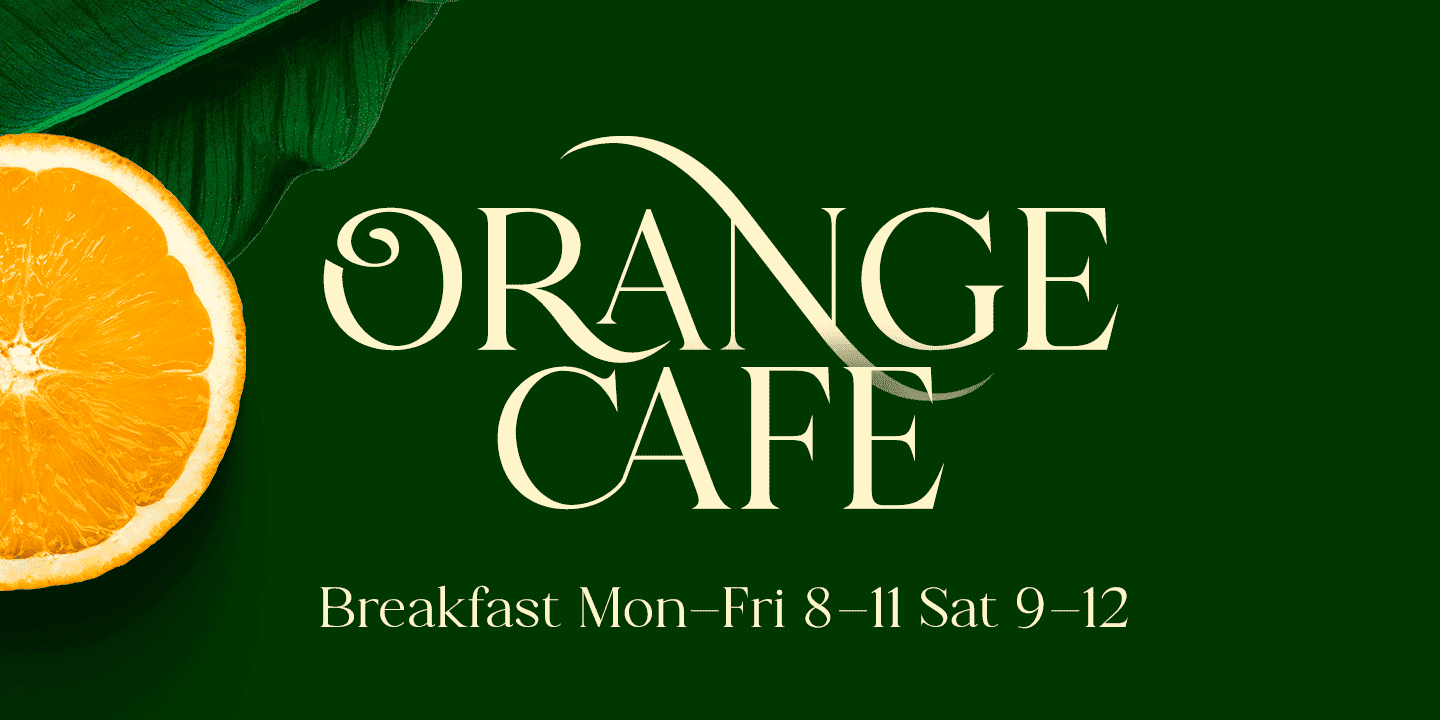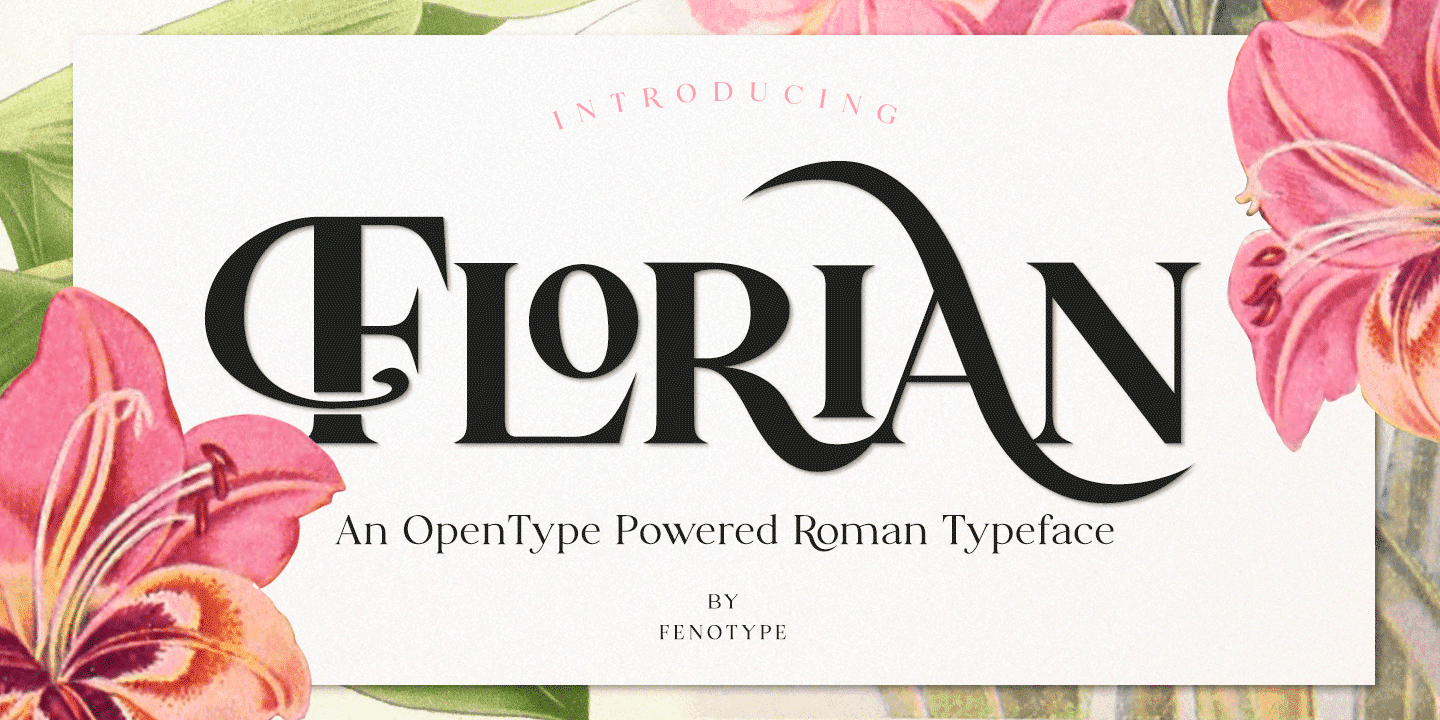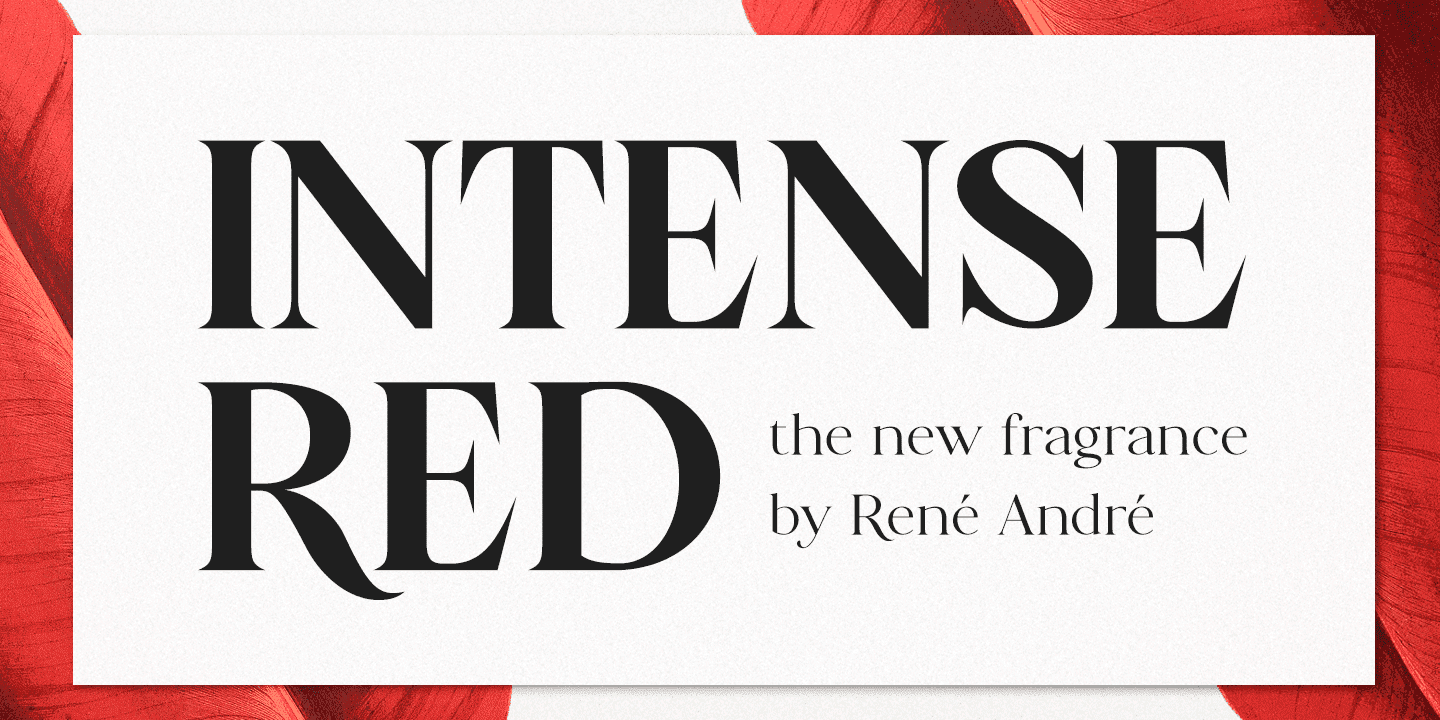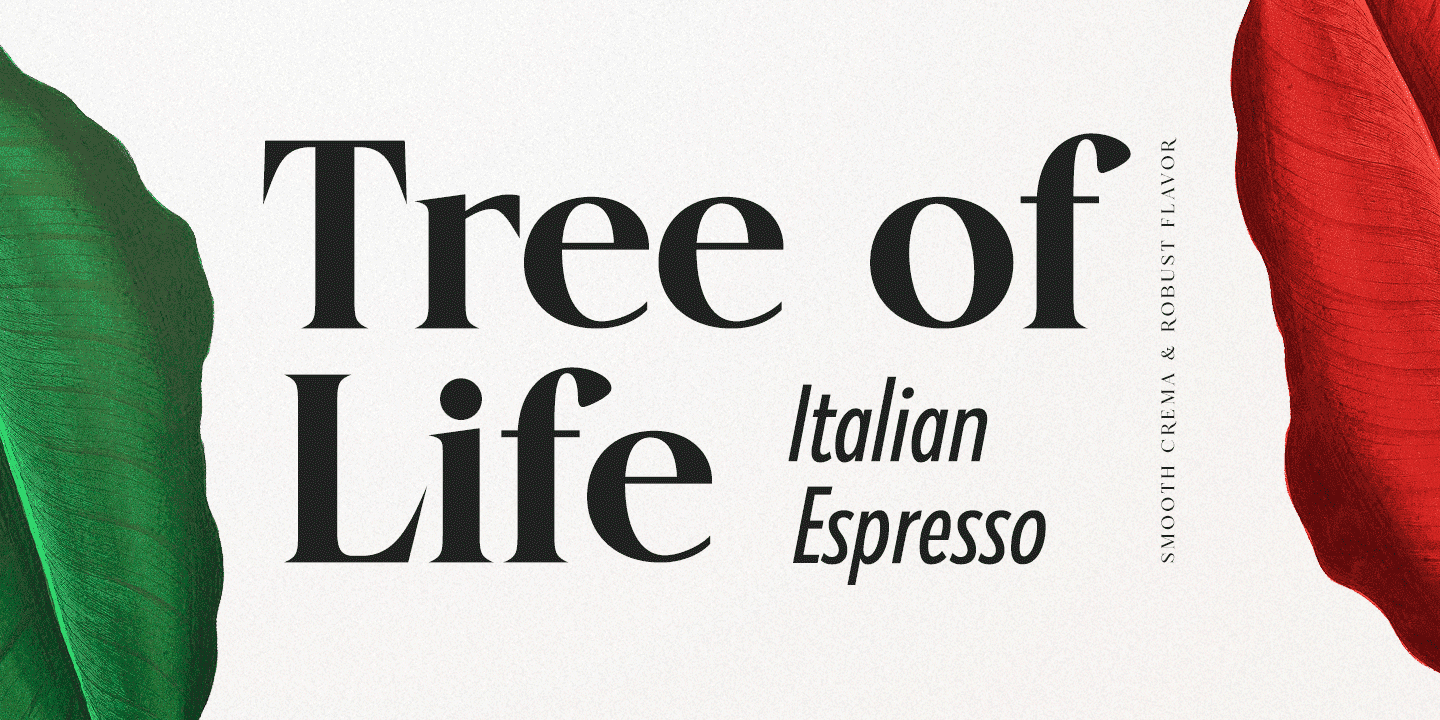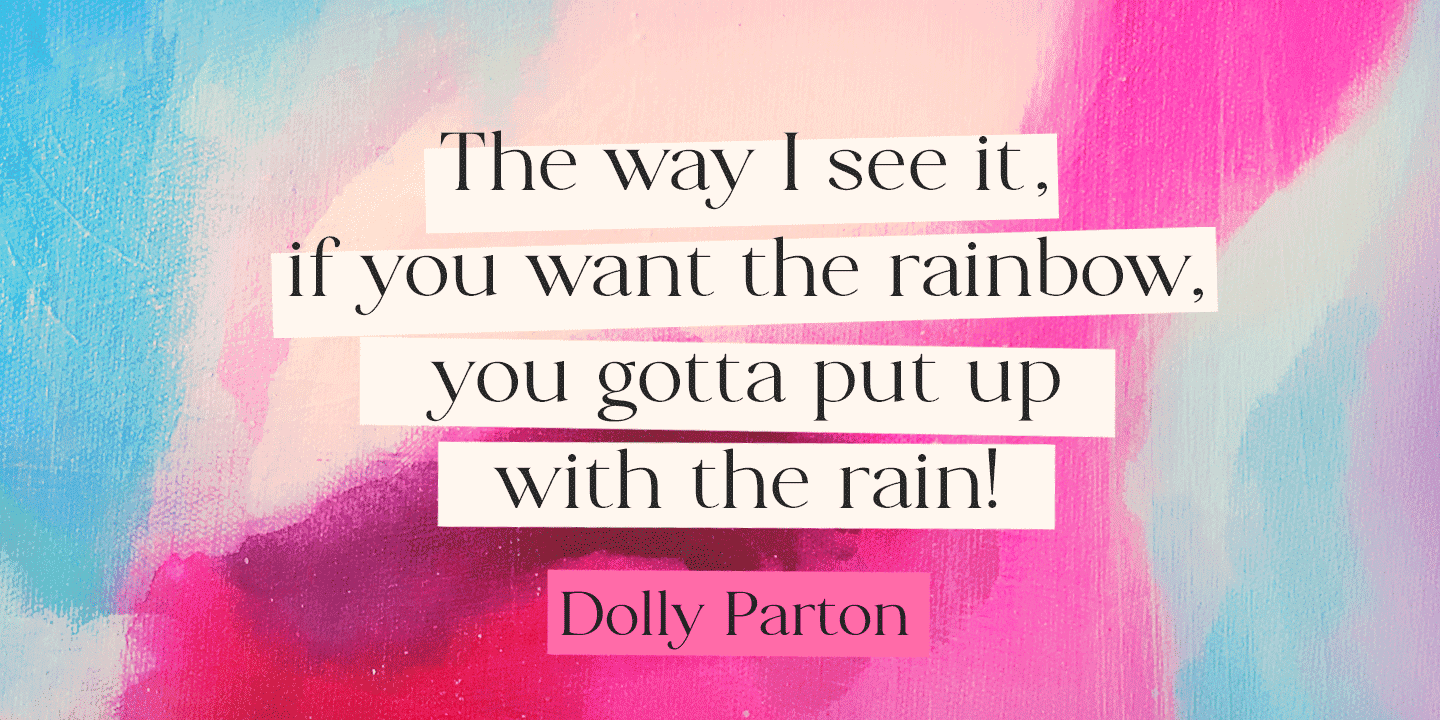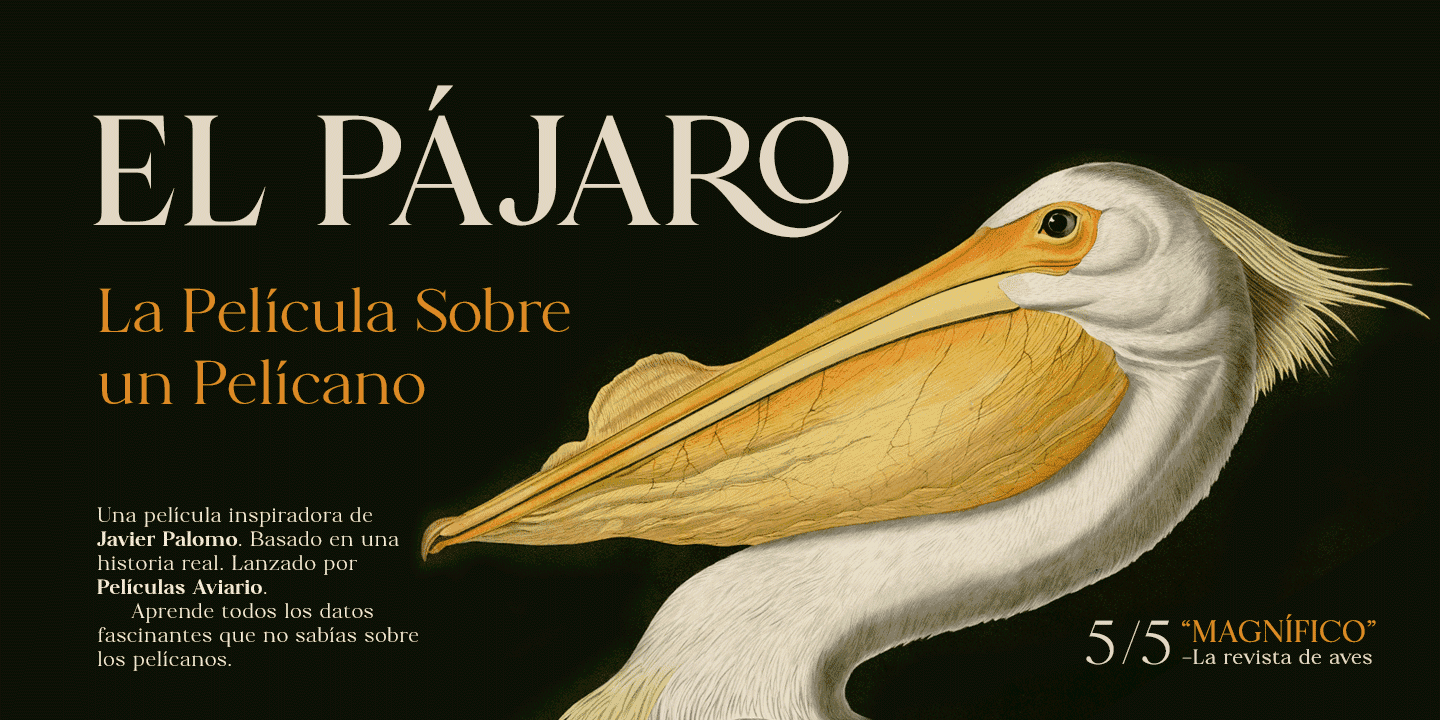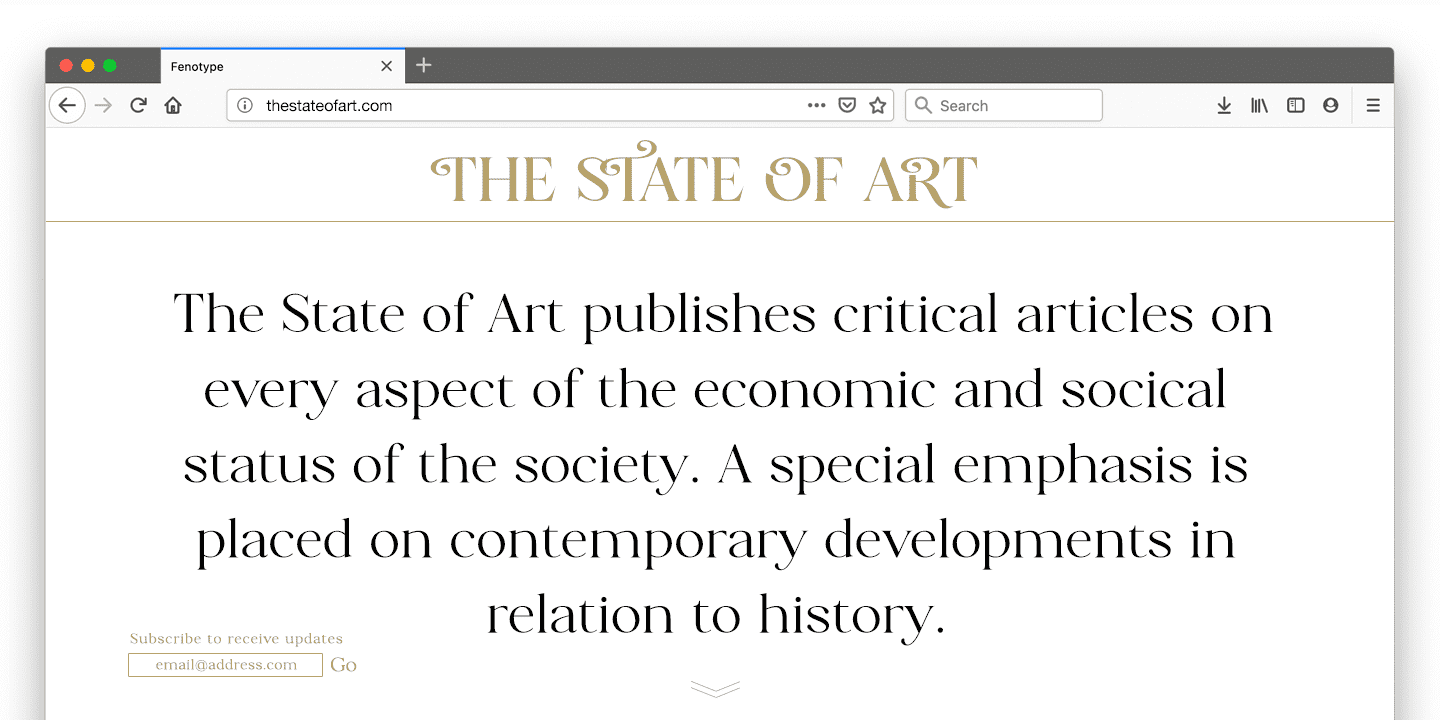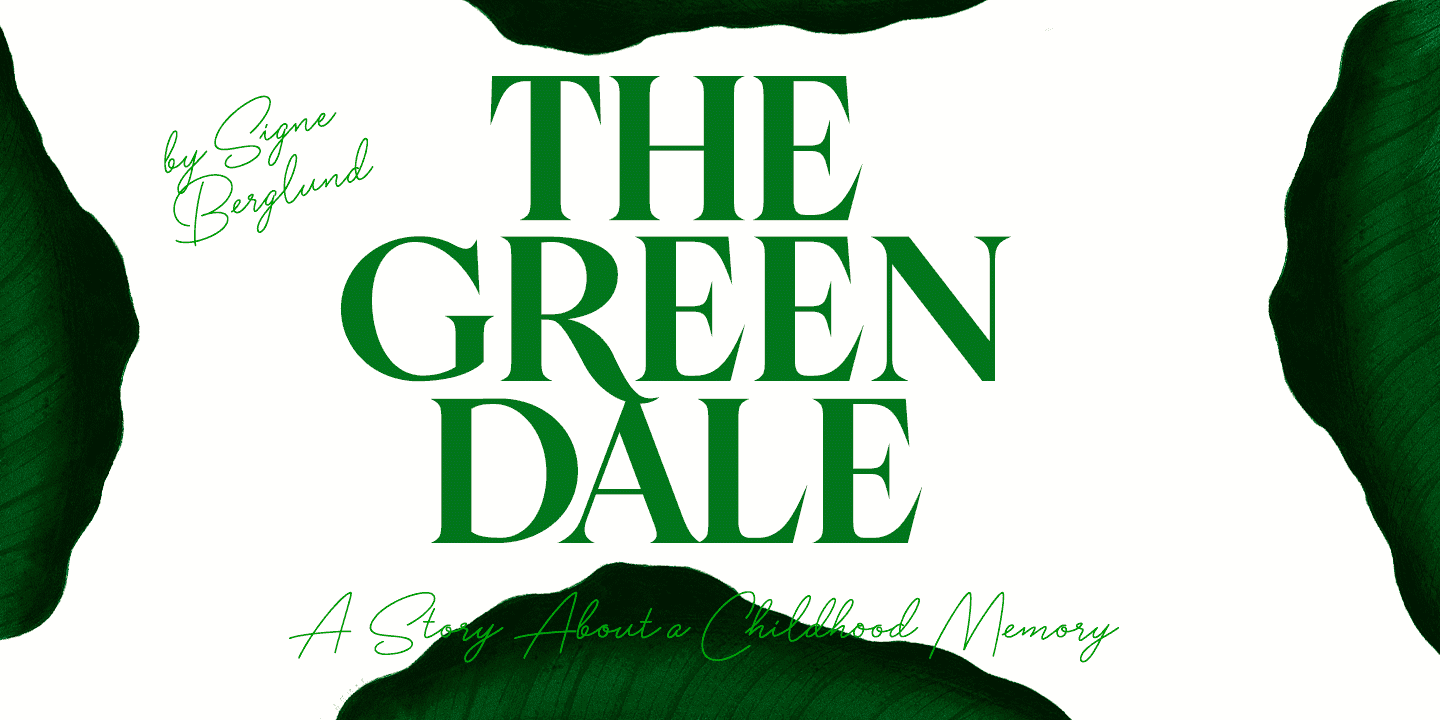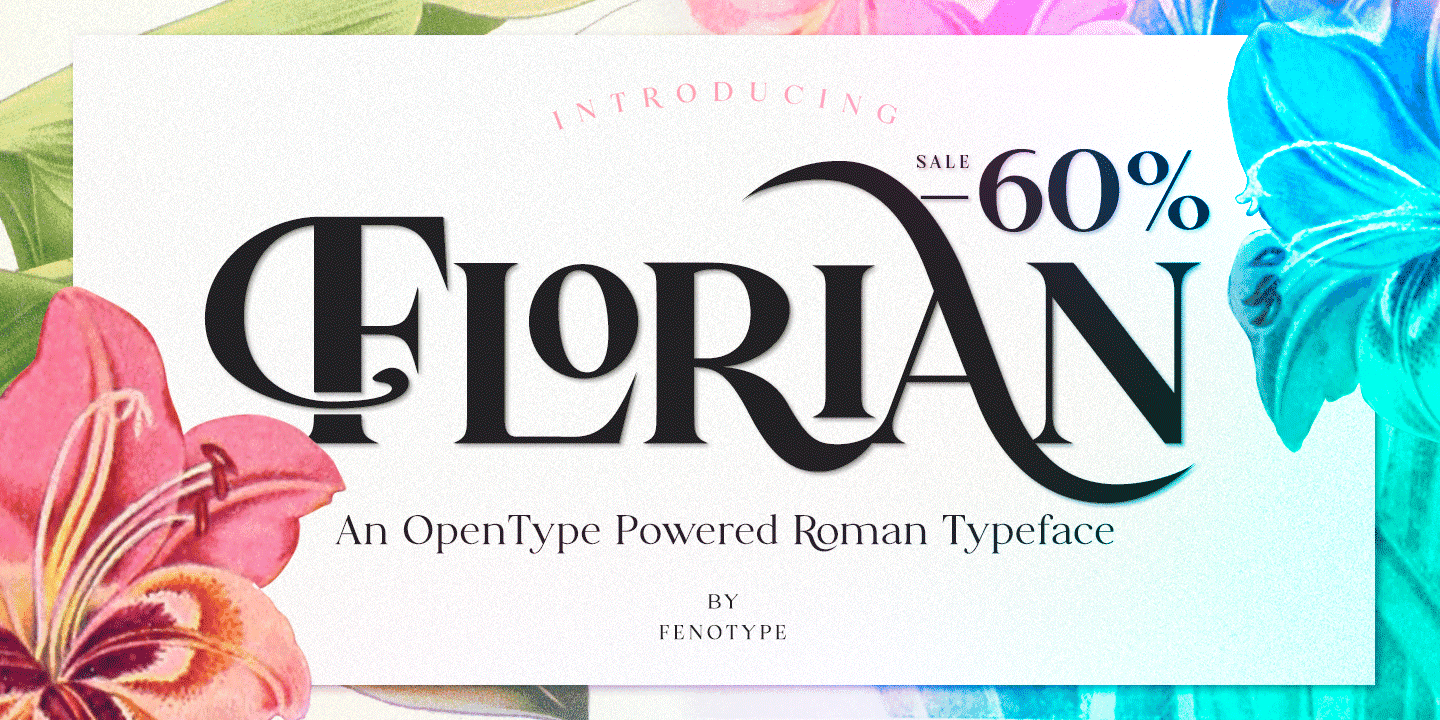
Florian is equipped with 150 OpenType alternates including Swash, Stylistic and Titling Alternates. Florian also has interlocking ligatures set in Discretionary Ligatures. These ligatures contain pairs in Uppercase + Uppercase and Uppercase + Lowercase. All Alternates are PUA encoded and can also be accessed from Glyph Palette or Character Map. Try combining Discretionary Ligatures with other Alternates in Caps to create striking word forms.